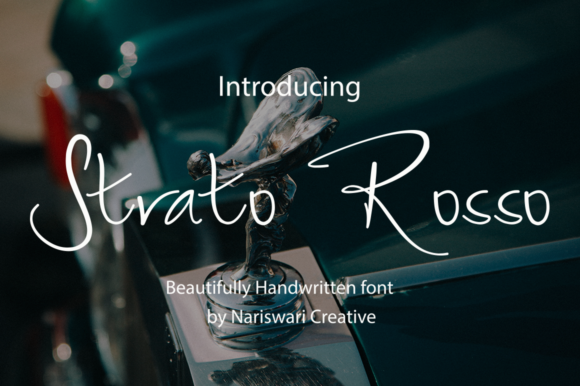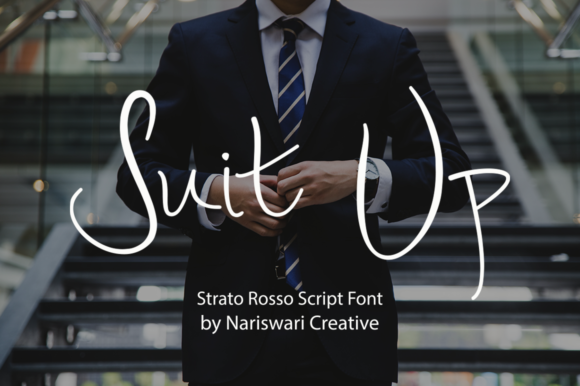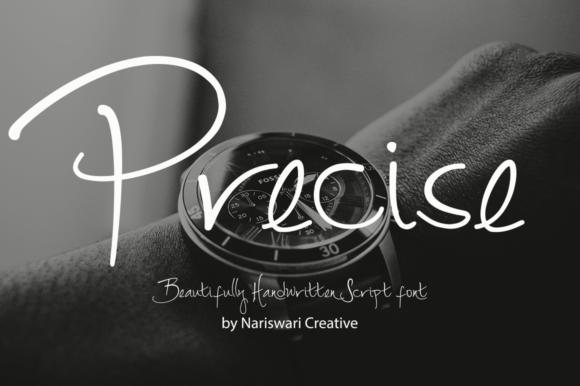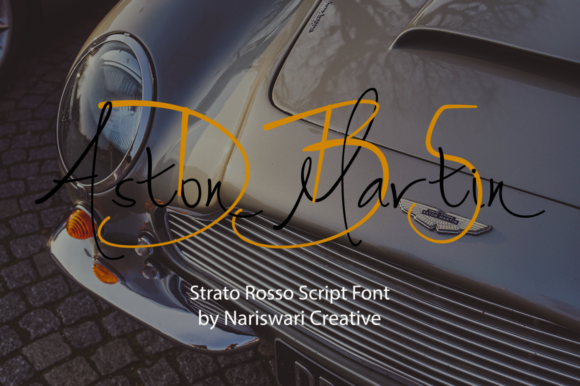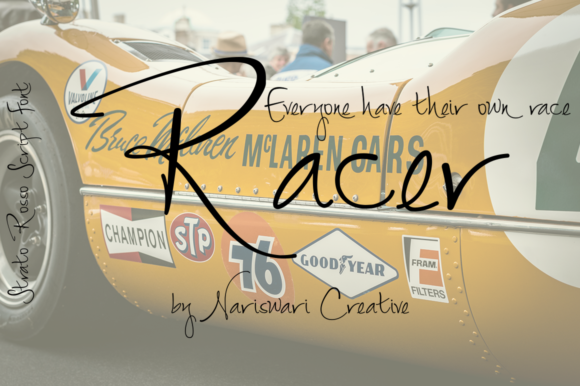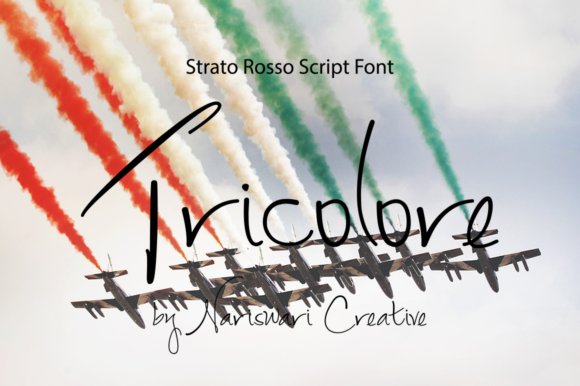
Strato Rosso Font
About Strato Rosso Font
Strato Rosso feels equally charming and elegant. This stunning handwritten font is a stylish homage to classic calligraphy. Get inspired by its authentic feel and use it to create gorgeous wedding invitations, beautiful stationary art, eye-catching social media posts, and cute greeting cards.